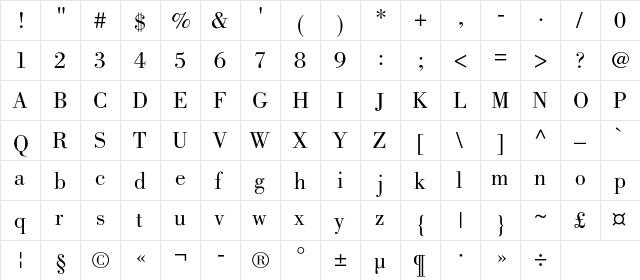
BorjomiBookC Regular Font Preview
BorjomiBookC Regular
Design Context for BorjomiBookC Typeface
BorjomiBookC offers clean, dependable letterforms without strong stylistic allegiance, making it a practical choice for designers who need flexibility.